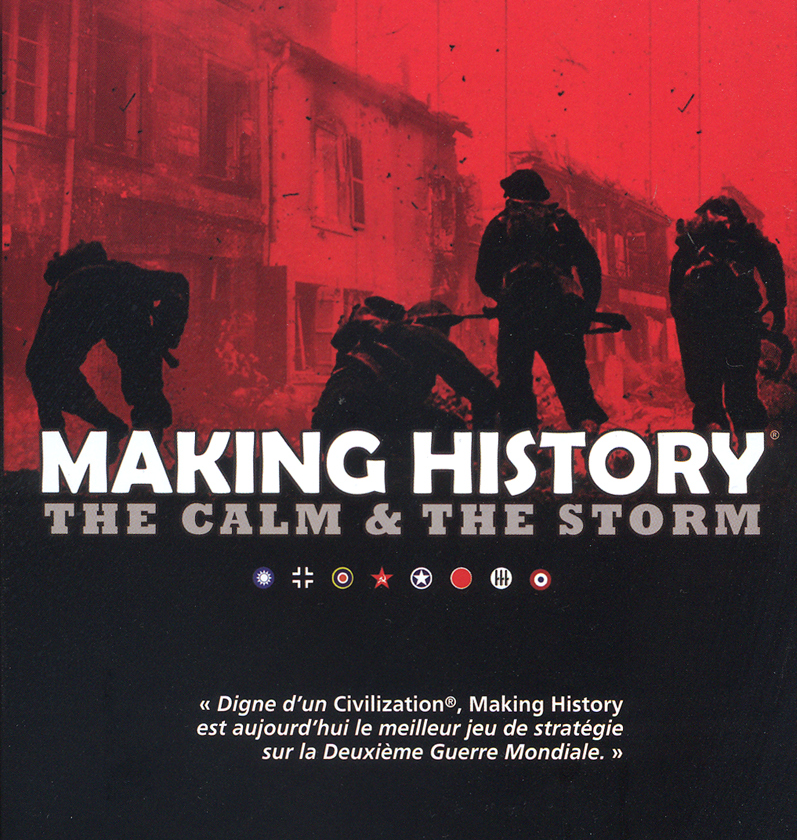
Making History Font
Fonts in UseMaking History is a strategy game that allows players to shape and alter the course of history, from the dawn of civilization to modern times, through diplomacy, warfare, and economic management.
The box art of the first installment of the game, Making History: The Calm & The Storm, features two distinct fonts. The title "Making History" is showcased in Berlin Sans Demi, a sans serif font inspired by alphabets from the late twenties. Meanwhile, the subtitle "The Calm & The Storm" is displayed in Rockwell Extra Bold, a geometric slab serif font crafted by Frank Hinman Pierpont.